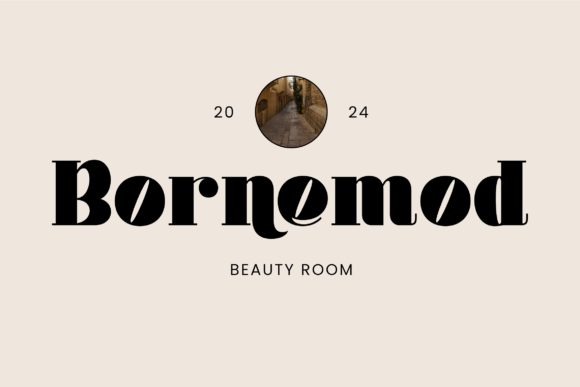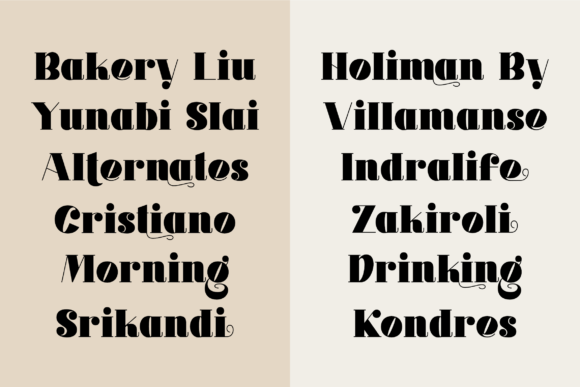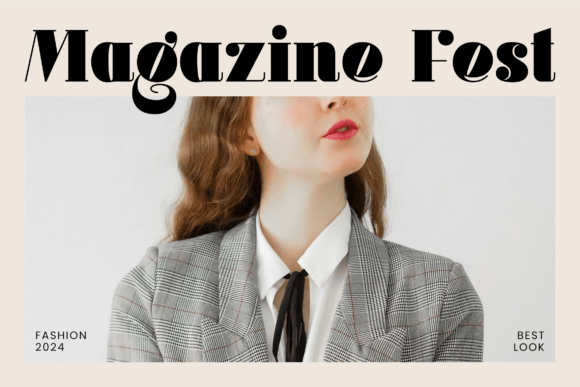
Introduction to Mindely Font
Have you ever found yourself staring at a blank canvas, searching for the perfect font to bring your creative project to life? The right font can make all the difference in conveying your message and capturing the attention of your audience. For designers, finding a high-quality font that meets the needs of their project can be a daunting task. But what if you stumbled upon a font that not only elevates your design but also makes it stand out in a crowded market?
This is where the Mindely Font comes in – a elegant serif font family that exudes modern sophistication. With its moderate contrast and display style, it’s perfect for branding projects, logo designs, and social media posts that require a touch of elegance. Whether you’re working on a wedding design, product packaging, or invitation, the Mindely Font is a valuable design resource that will elevate your creative project to the next level.
Key Features of Mindely Font
- High-quality, professional design ideal for creative projects
- Unique, modern design that is perfect for a variety of design applications, from logos to brochures
- Supports a wide range of languages, making it a versatile design resource
Honest Review: Mindely Font
I recently had the chance to work with the Mindely Font for a creative project and I must say it was a pleasant experience. As a designer, I’m always on the lookout for high-quality design resources that can elevate my work and make it stand out.
Here’s what I liked about the Mindely Font: ✨ It’s free to download, which is always a bonus. The font is well-designed and versatile, making it suitable for a variety of creative projects. I also appreciated the transparent background, which allowed me to easily incorporate the font into my design without any distractions.
- ✨ High-quality design
- ✨ Versatile and suitable for various creative projects
- ✨ Transparent background
However, there are a few limitations to consider: ⚠️ The font selection is limited, so you may not find the perfect fit for your project. Additionally, the font may not be suitable for large-scale commercial use.
Overall, I was impressed with the Mindely Font and would recommend it to designers looking for a high-quality, free design resource. Just keep in mind the limitations mentioned above, and you’ll be all set to create some amazing designs.
How to Use Mindely Font
The Mindely Font is a versatile and modern design resource ideal for various creative projects. Its high-quality design and transparent background make it perfect for adding a professional touch to your work.
Getting the Most Out of Mindely Font
To get the most out of the Mindely Font, experiment with different font sizes, colors, and styles to create visually appealing designs. You can also use it in combination with other design elements to create a unique look.
The Mindely Font is suitable for a wide range of creative projects, including logos, business cards, brochures, and social media graphics. Its modern design makes it perfect for fashion, technology, and finance-related projects.